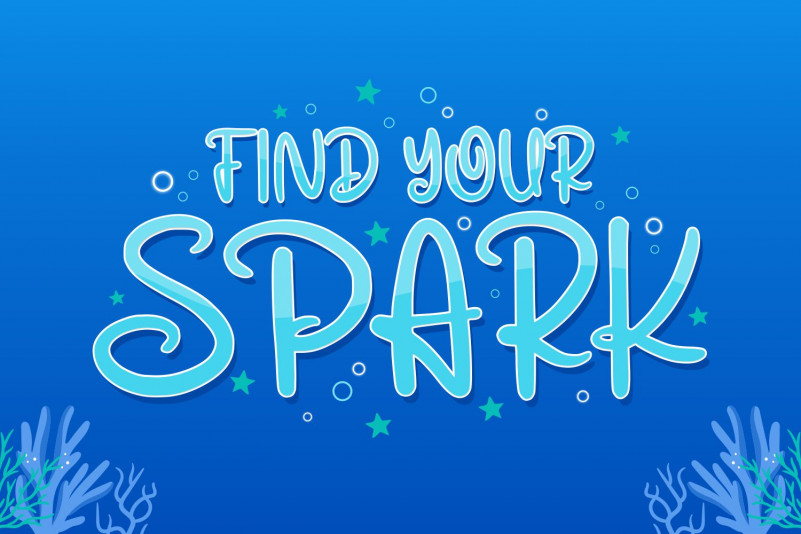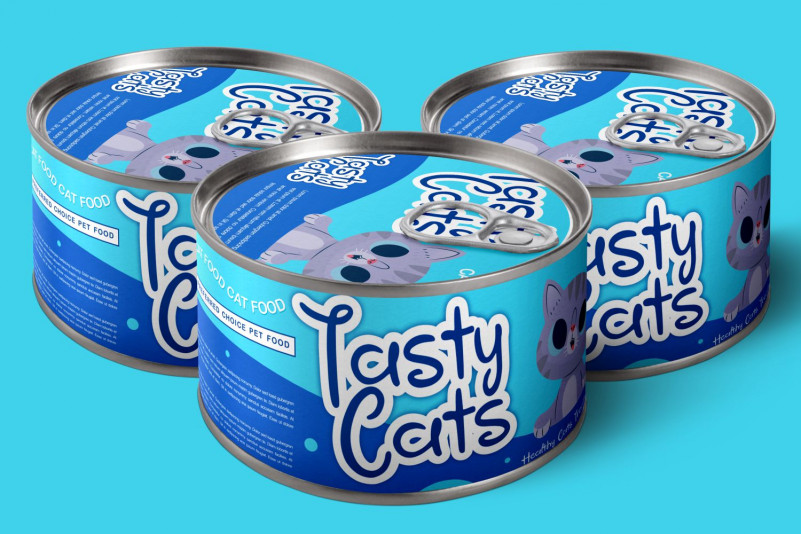
Oceanic Cocktail Display Font
Oceanic Cocktail Display Font is a cute, relaxed and round lettered handwritten font. It is the best choice for creating eye catching logos, branding and quotes. Every letter has a unique and beautiful touch, which will make your design come alive!